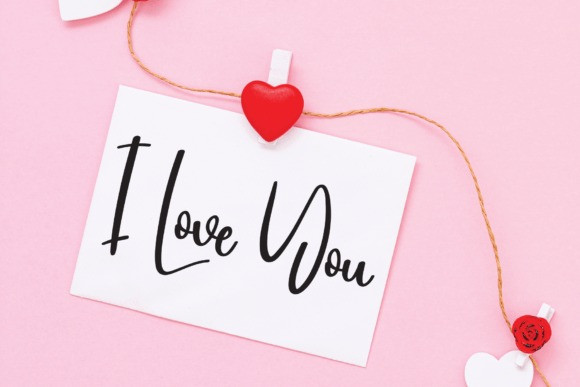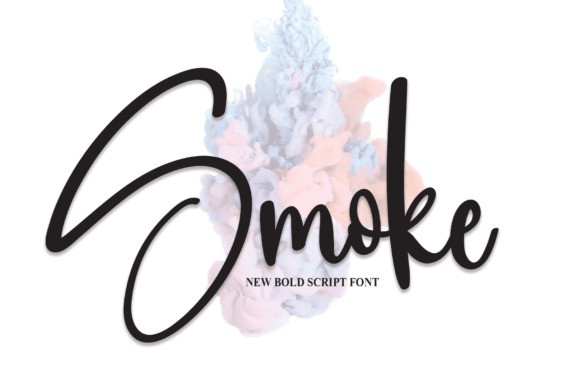
Smoke Script Font
Smoke Script Font is bold and expressive. Its thick and solid lines make it easy to read and its conservative bends aren’t overwhelming to the eyes. A balanced fusion of playful and professional, there are a ton of design projects this font will be perfect for.